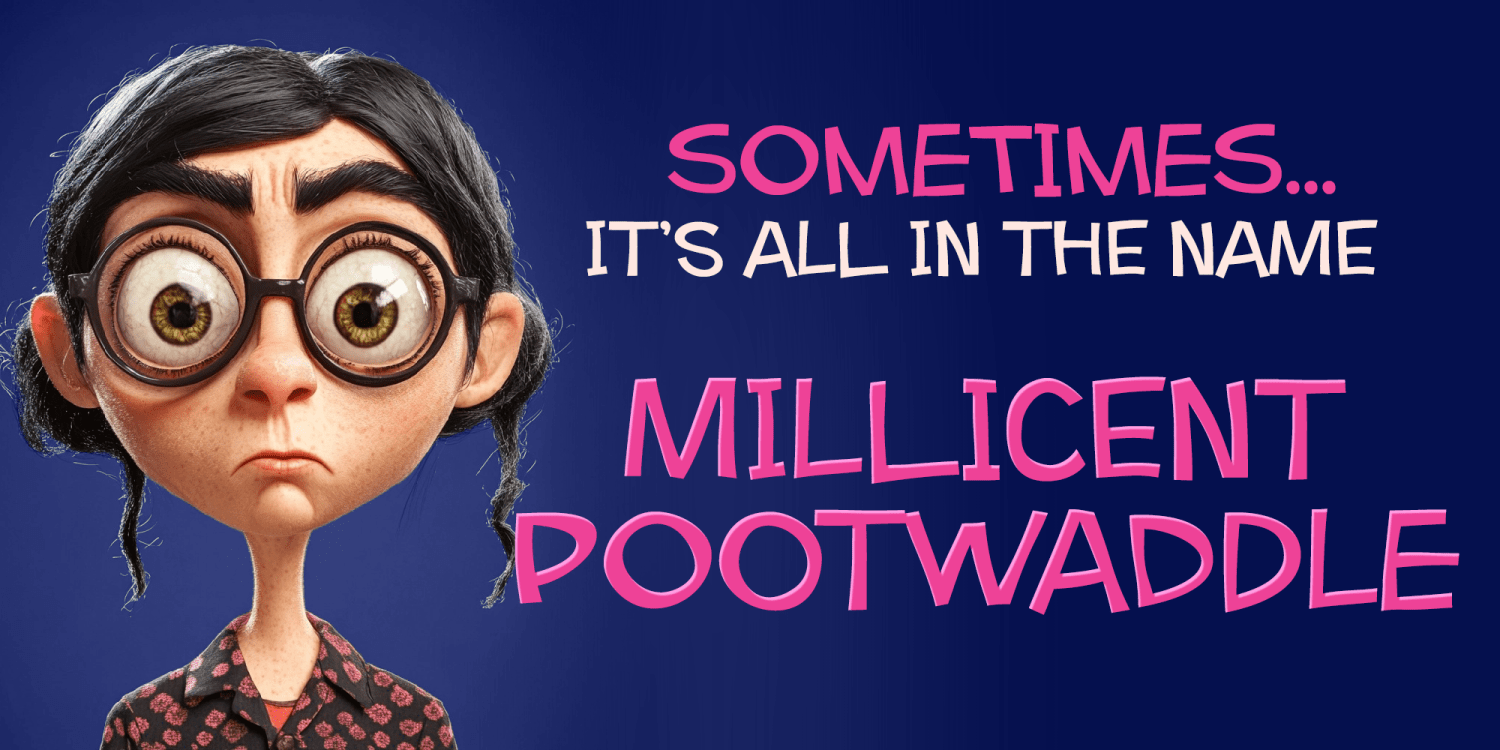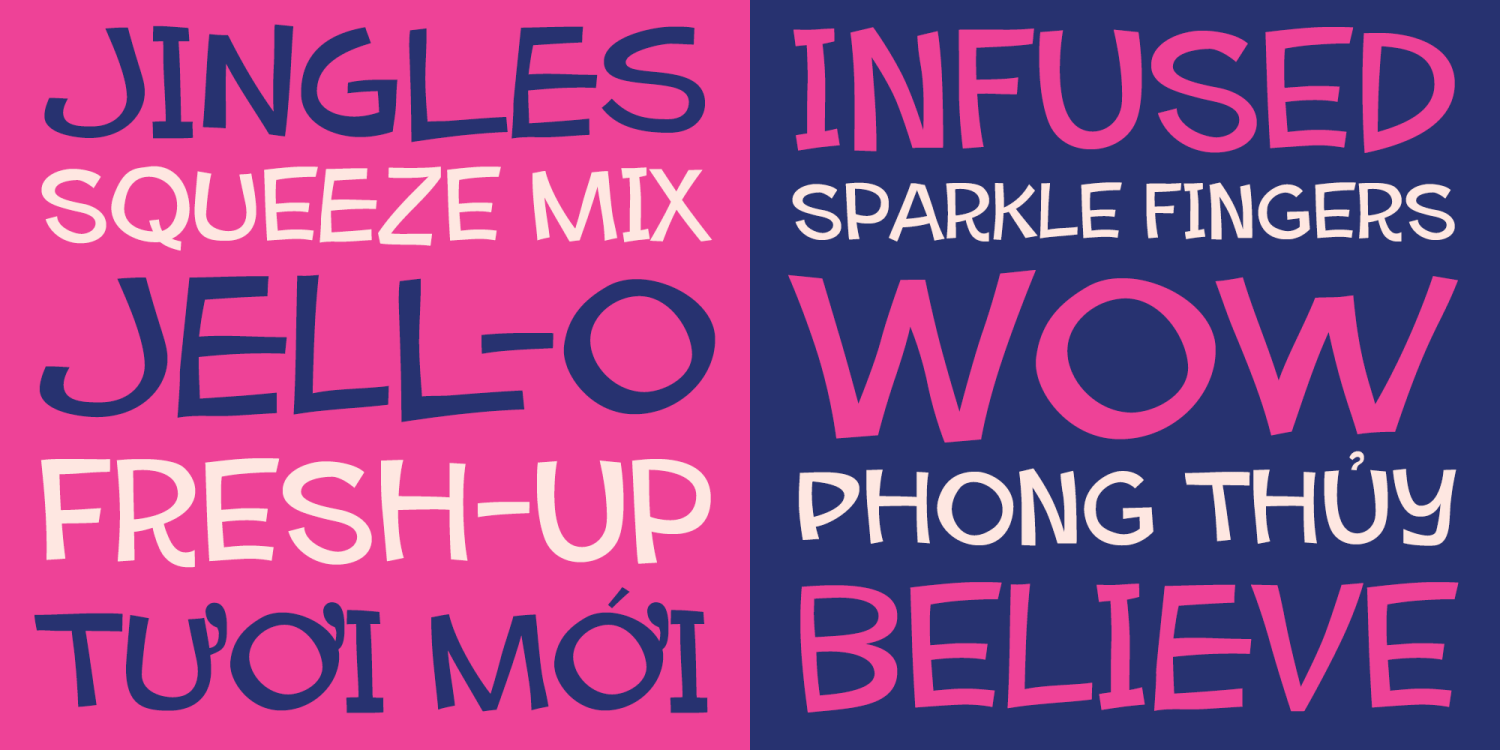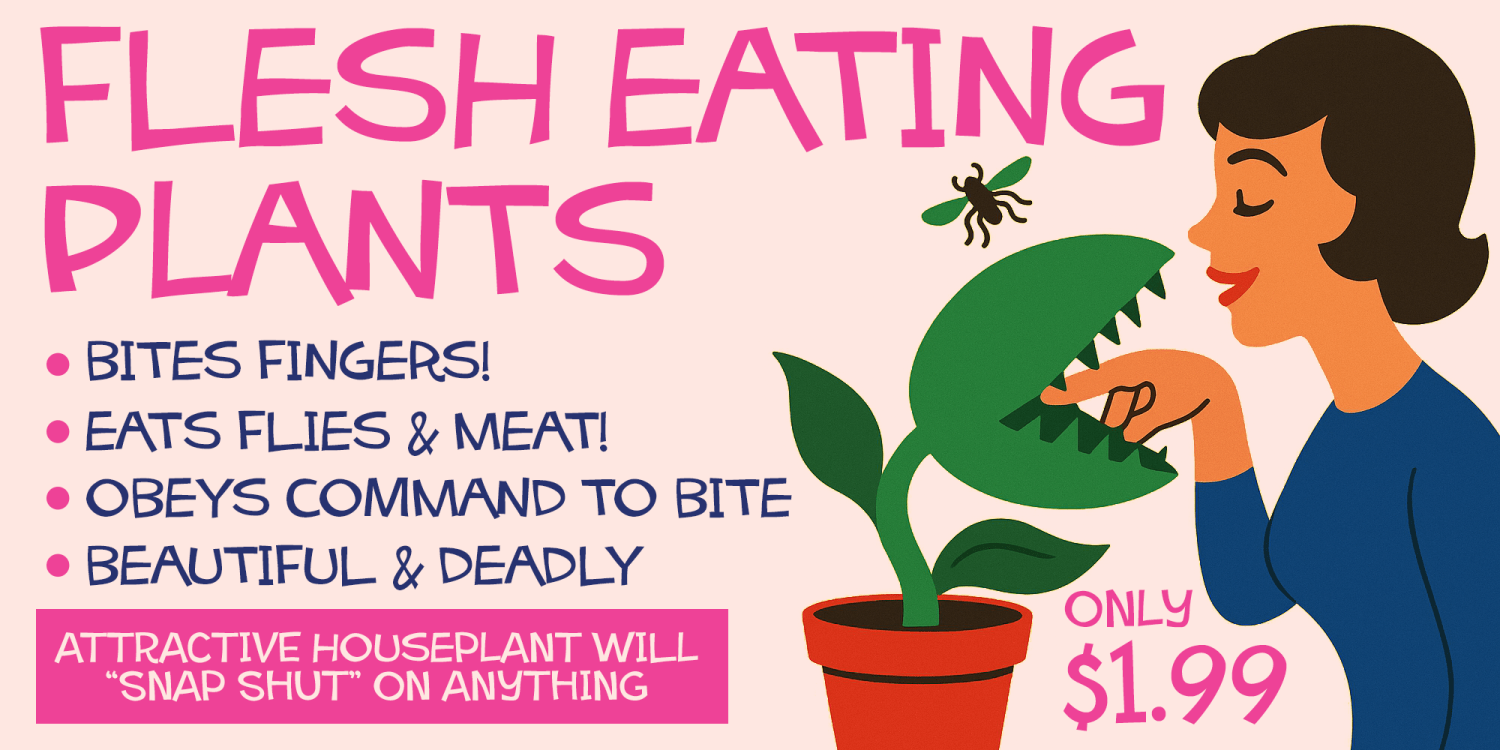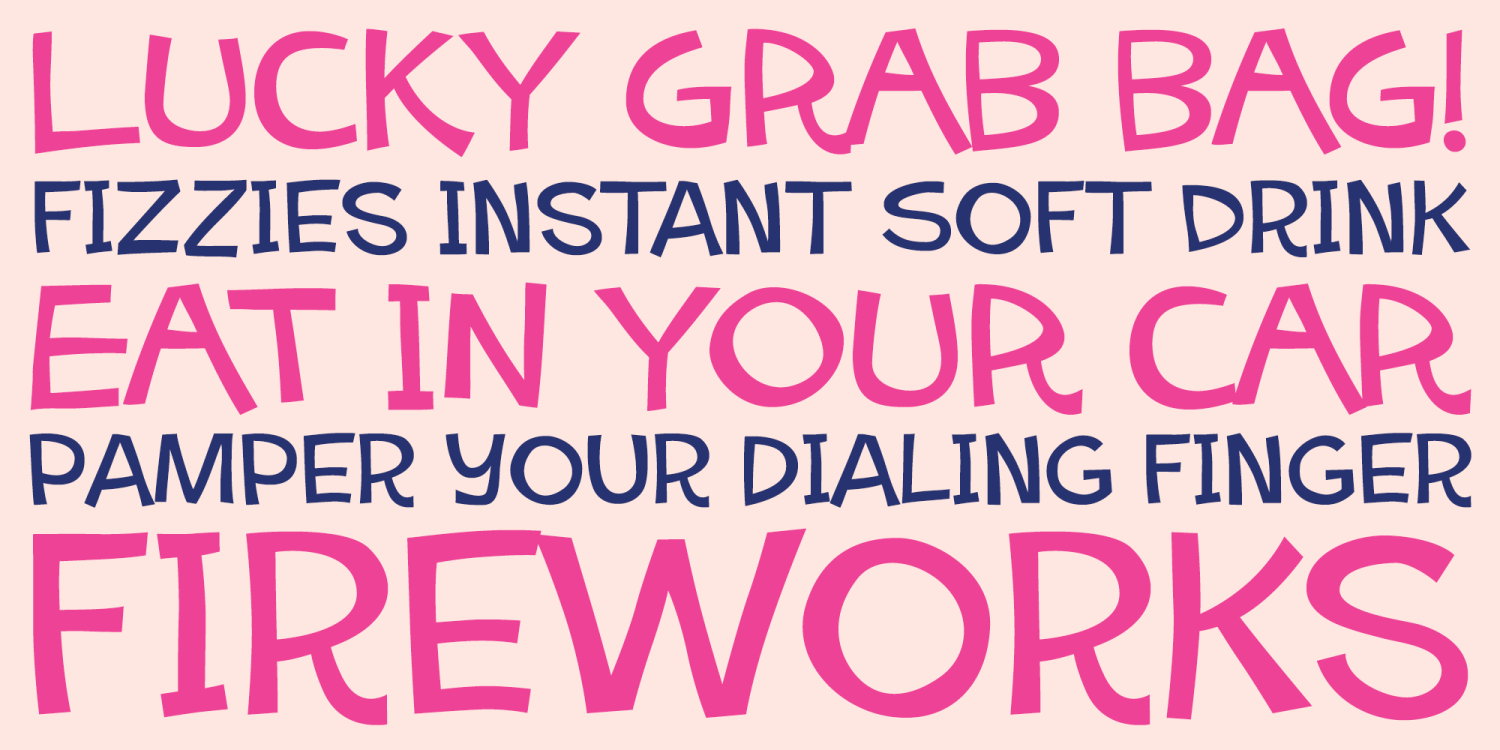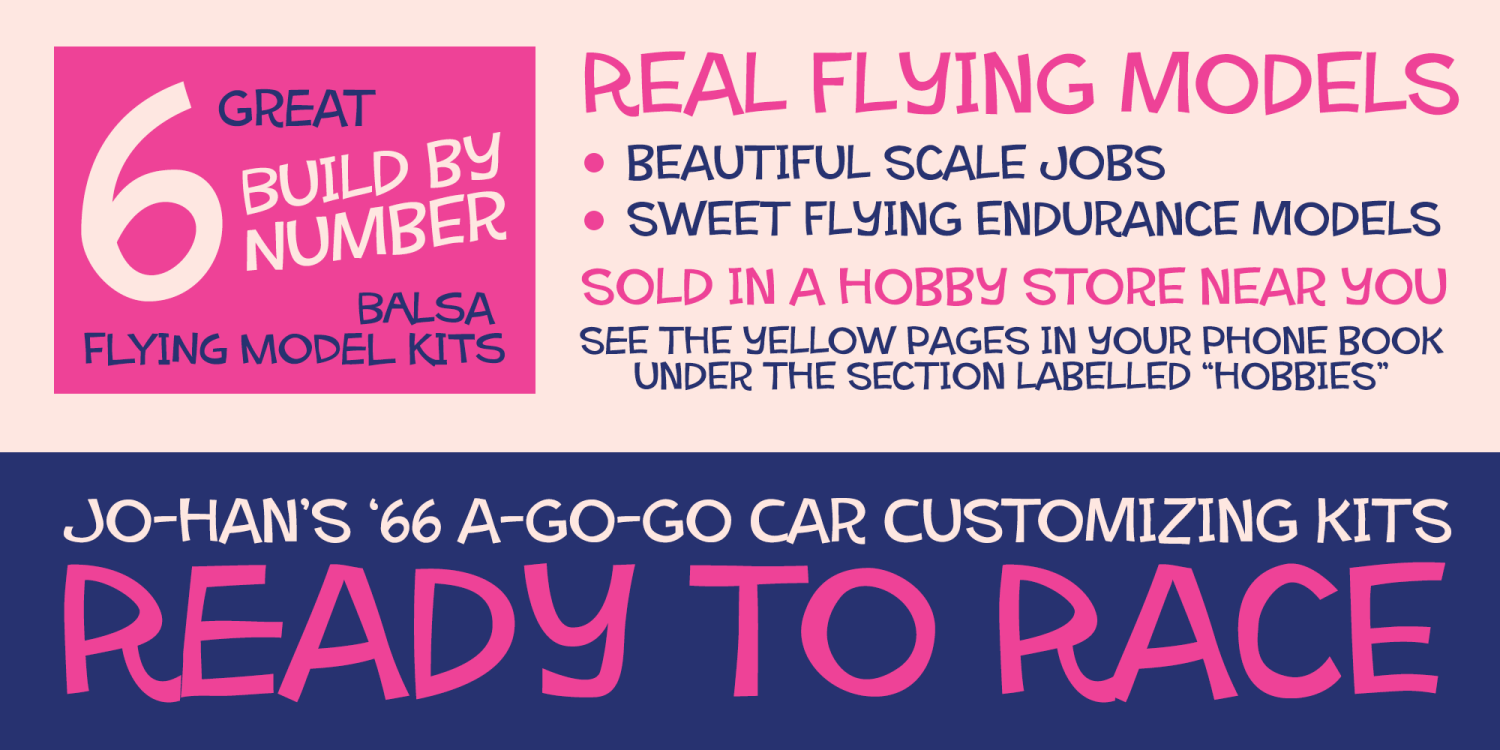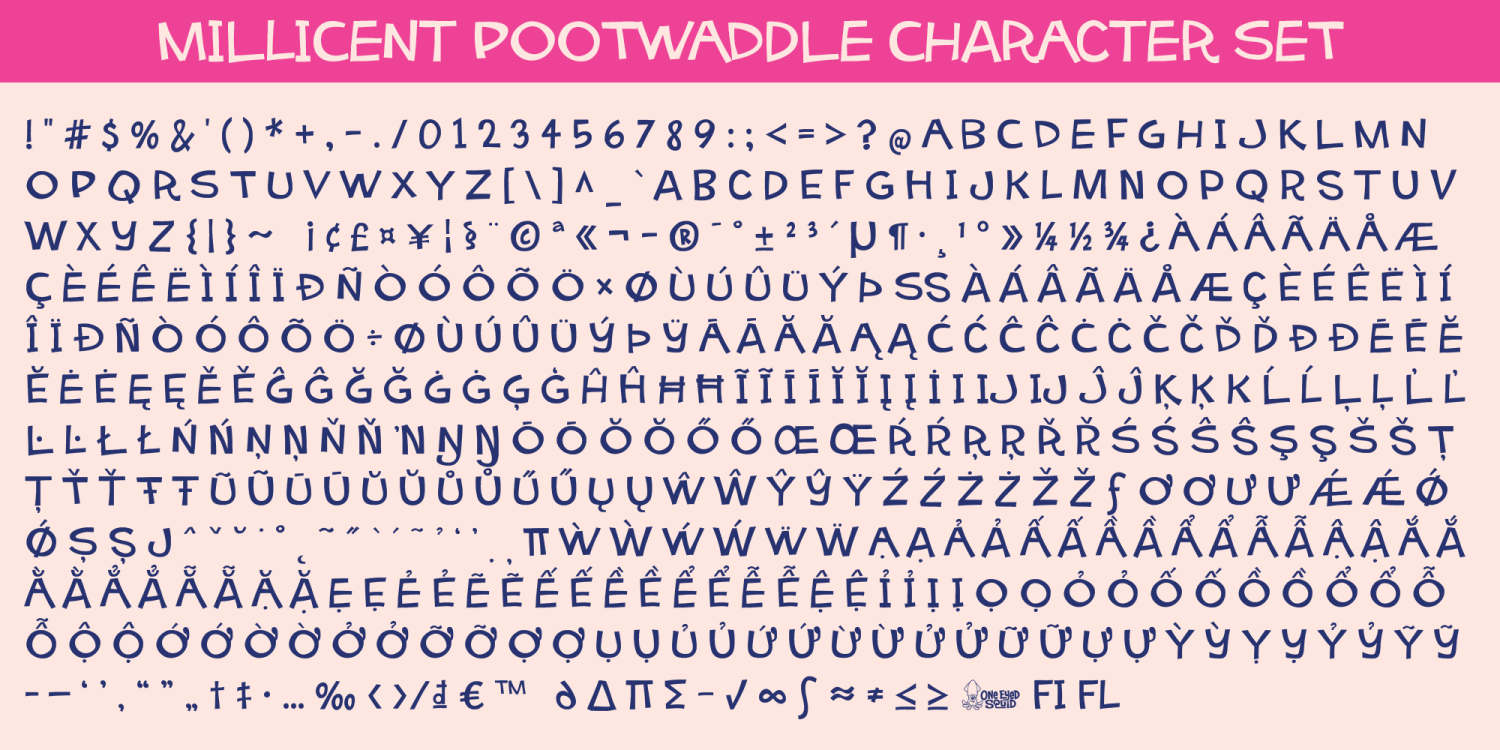
Millicent Pootwaddle
Millicent Pootwaddle is a daft, quirky display font with a silly personality, offbeat charm, and an awkwardly endearing presence. Its playful letterforms bring a whimsical and unconventional voice to designs that want to feel lively, humorous, and full of character. Ideal for headlines, posters, branding, packaging, greeting cards, invitations, social media graphics, and other creative projects that benefit from a fun, eccentric typographic style, Millicent Pootwaddle adds memorable personality with a lighthearted twist. Includes extended Latin language support, including Vietnamese.
Millicent Pootwaddle includes 482 glyphs.
Millicent Pootwaddle by One Eyed Squid